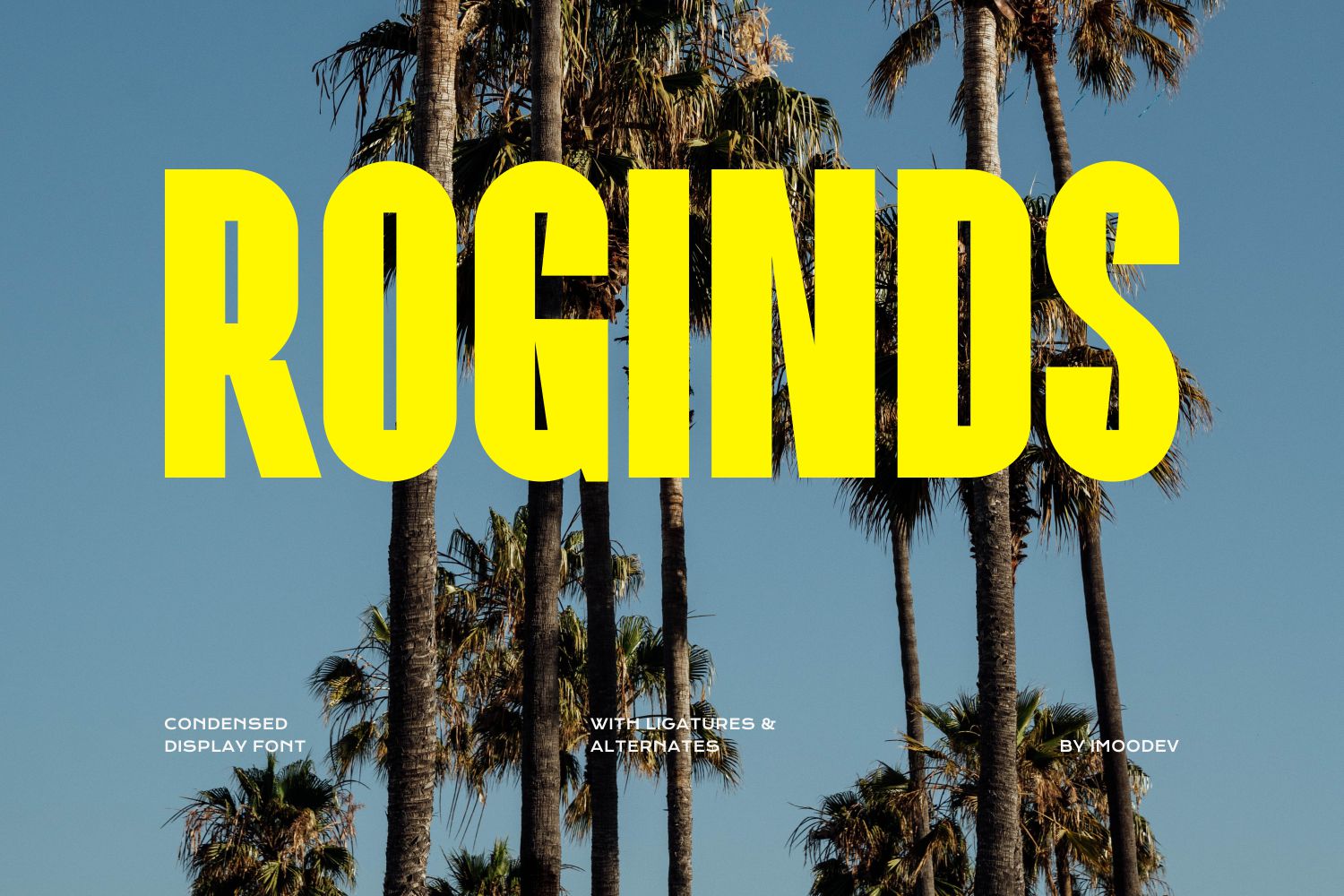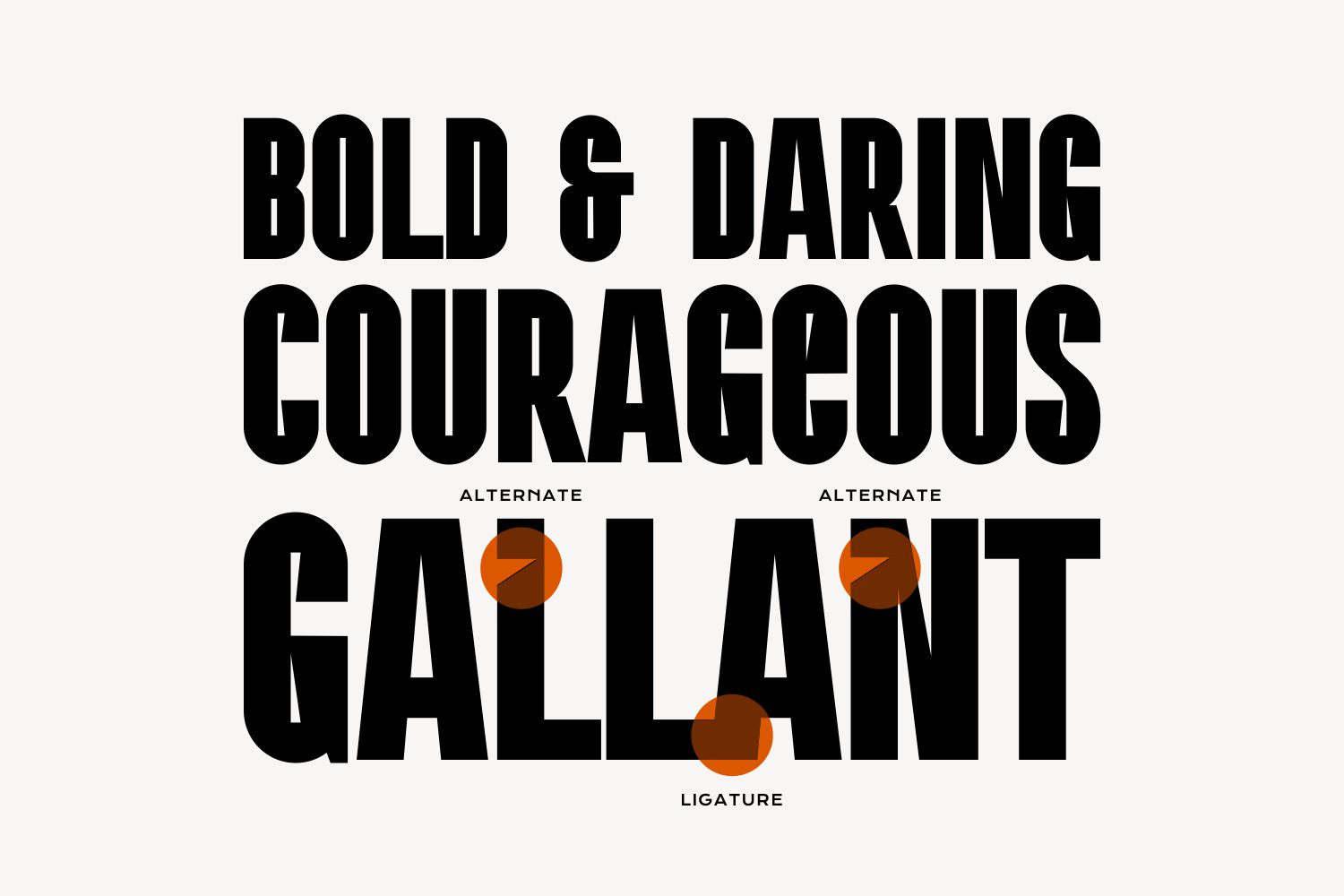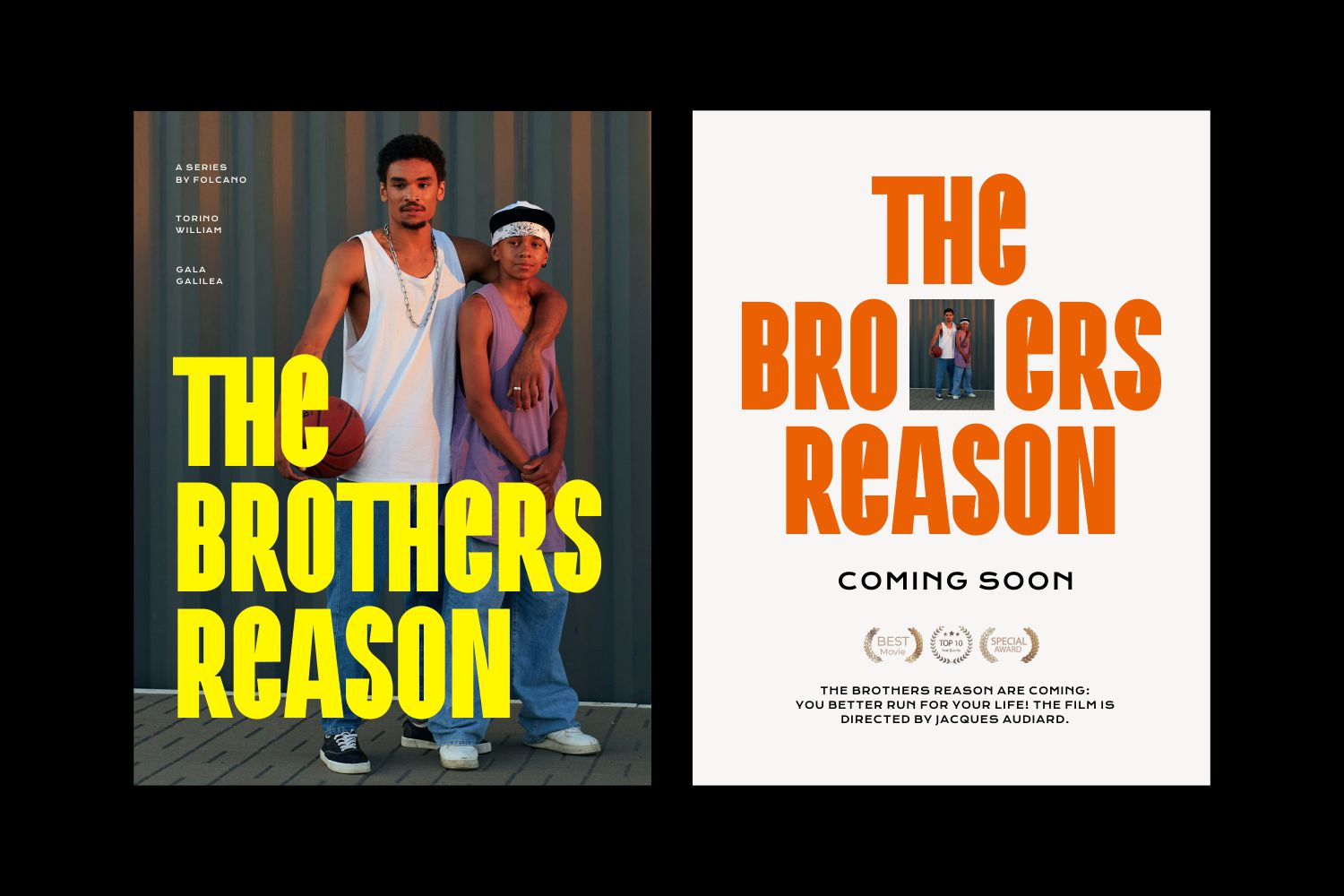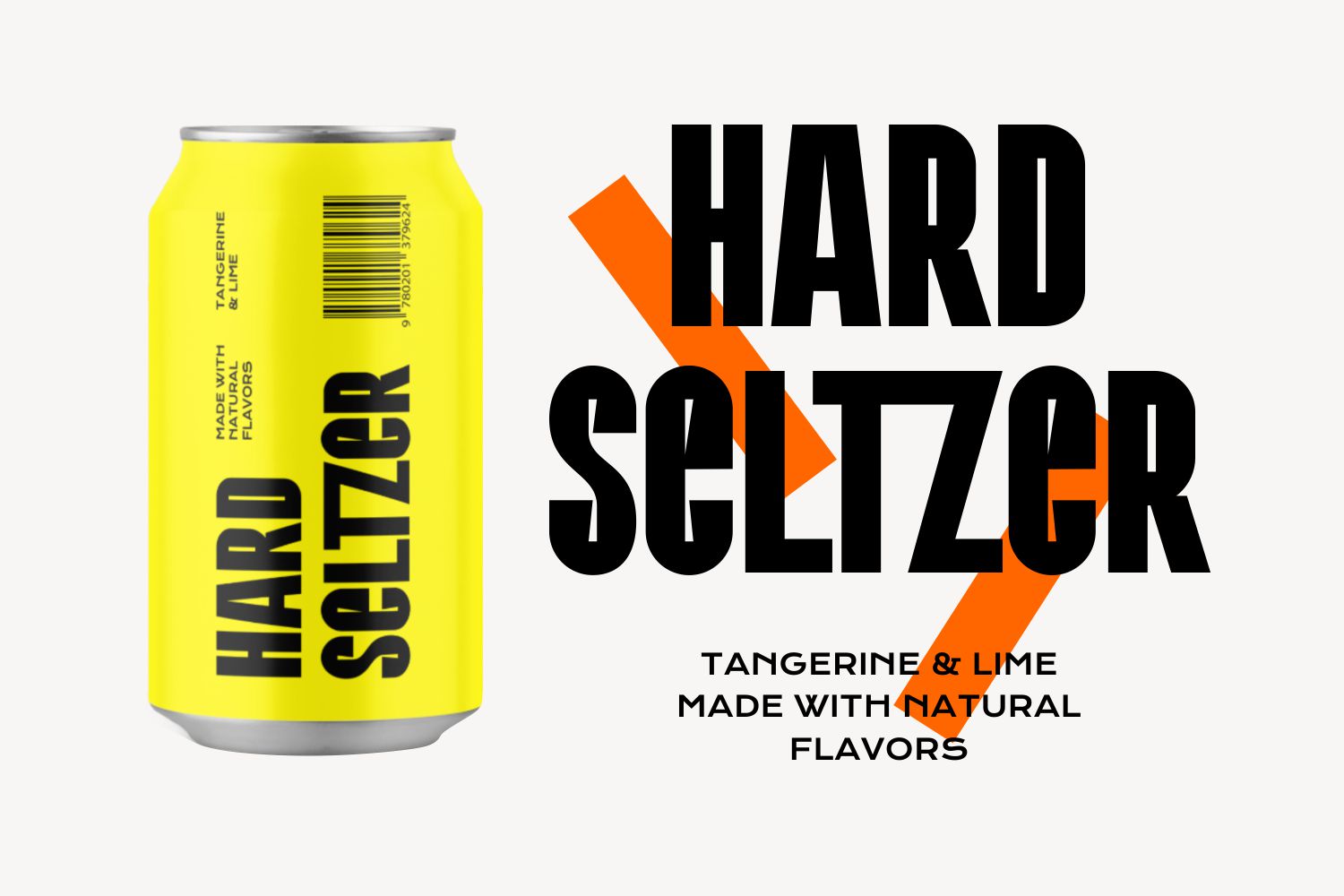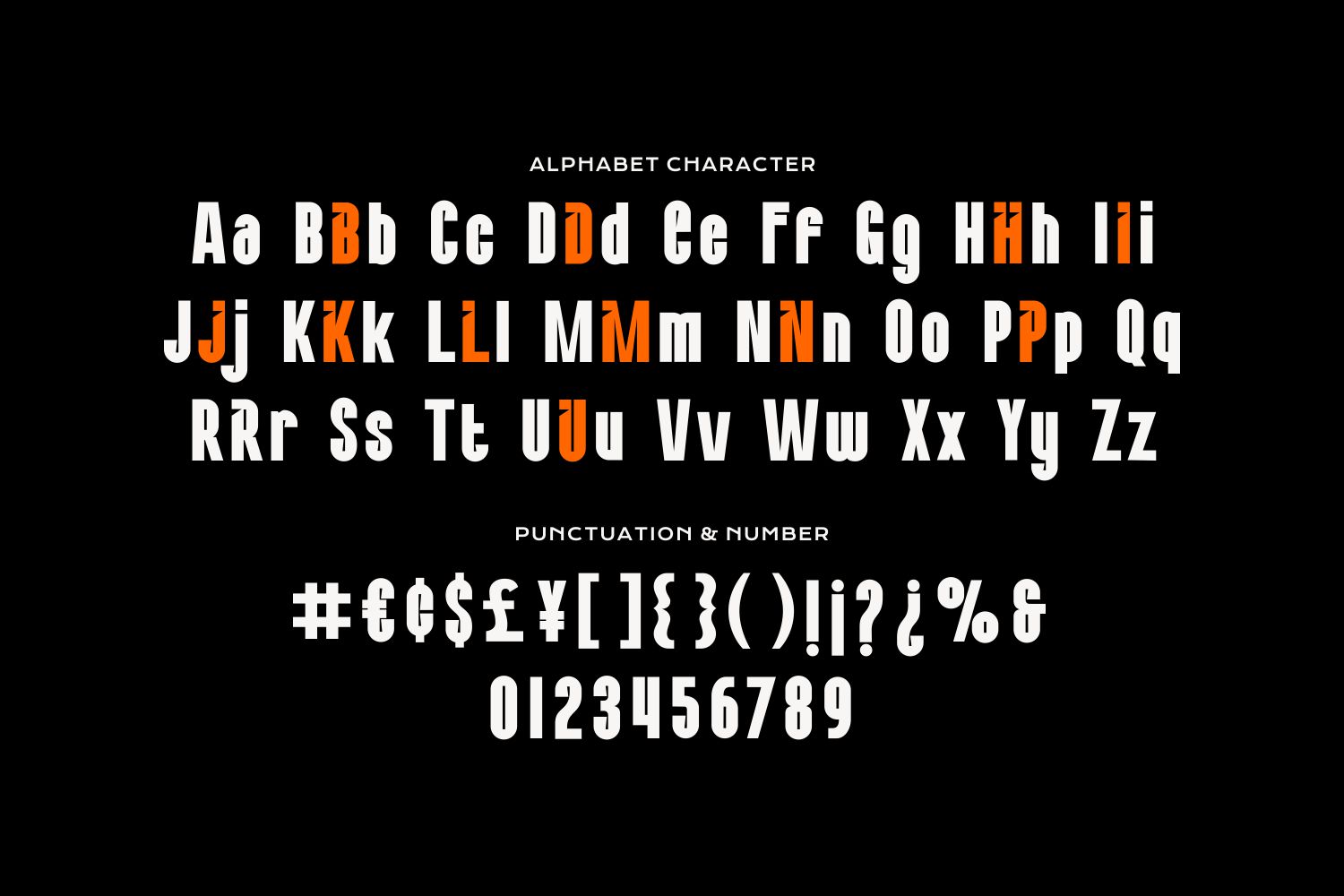
Roginds is a bold and modern condensed display font designed to make a powerful statement. With its tall, narrow letterforms and sharp geometric cuts, this typeface exudes strength, confidence, and a contemporary edge. Perfect for headlines, posters, product packaging, and branding projects, Roginds brings a commanding presence that instantly grabs attention. Its distinctive alternates and stylish ligatures give designers the freedom to create unique and memorable typography.
Whether used for movie titles, fashion campaigns, beverage branding, or urban design projects, Roginds delivers a dynamic and impactful aesthetic. Its versatility shines in both digital and print applications, making it a go-to choice for projects that demand boldness and clarity. With its sleek design and striking visual appeal, Roginds ensures your message stands out and leaves a lasting impression.